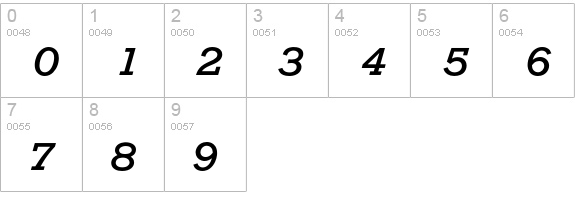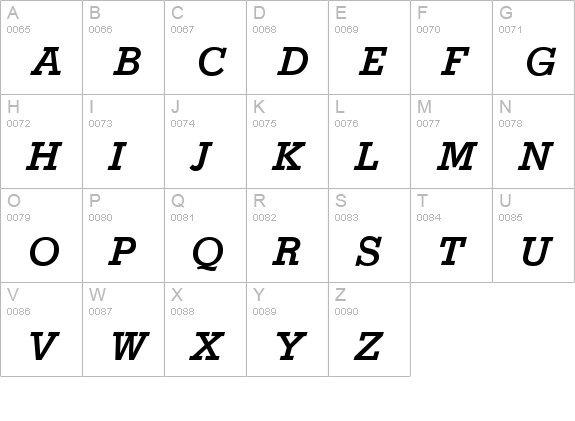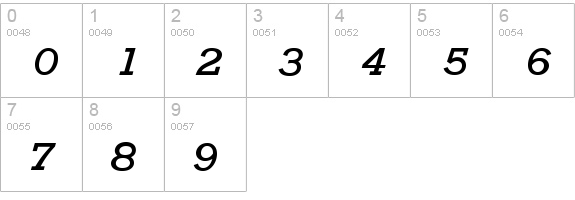
Stymie Bold Italic Font Details
Stymie Bold Italic is a strong, high-contrast, italic variant in the Stymie typeface family \xE2\x80\x94 well suited to headlines, attention-grabbing titles, and strong calls-to-action.
Stymie Bold Italic is a striking and versatile font that exudes confidence and sophistication. Its bold strokes and elegant italics make it perfect for a wide range of design projects, from branding to editorial design. The unique combination of boldness and elegance in this font is sure to make your text stand out and leave a lasting impression on your audience. What's even better is that Stymie Bold Italic is available for free download at FontsMarket.com. This means you can easily access this high-quality font and use it in your projects without any cost. So why wait? Download Stymie Bold Italic today and elevate your designs with its bold and stylish aesthetic.